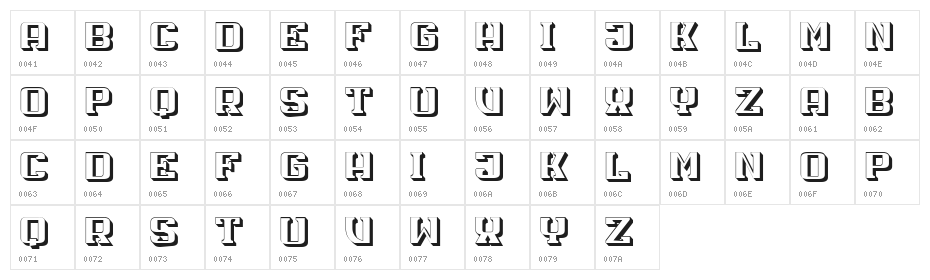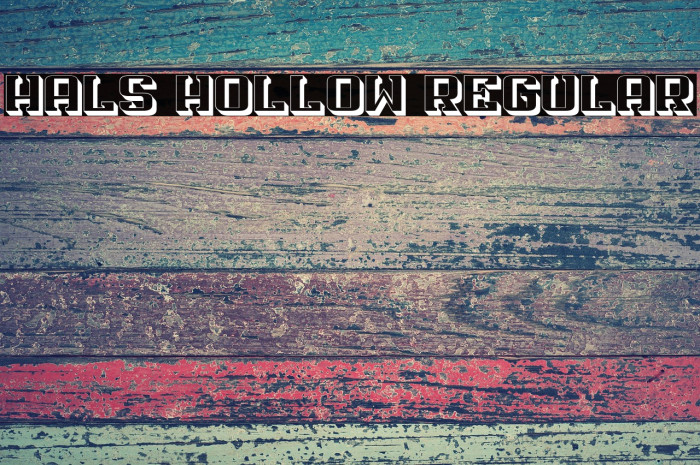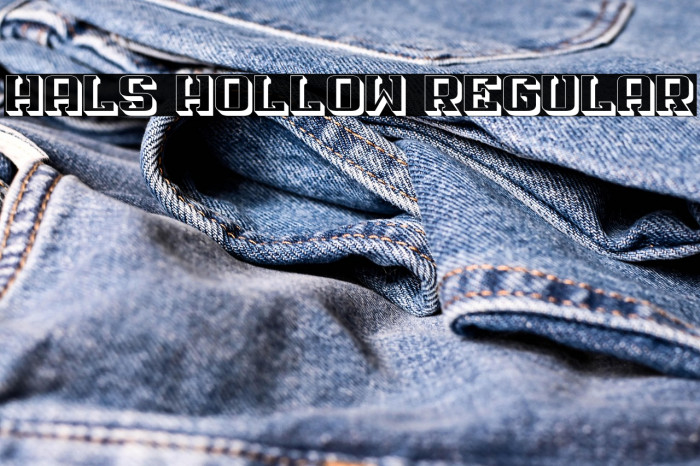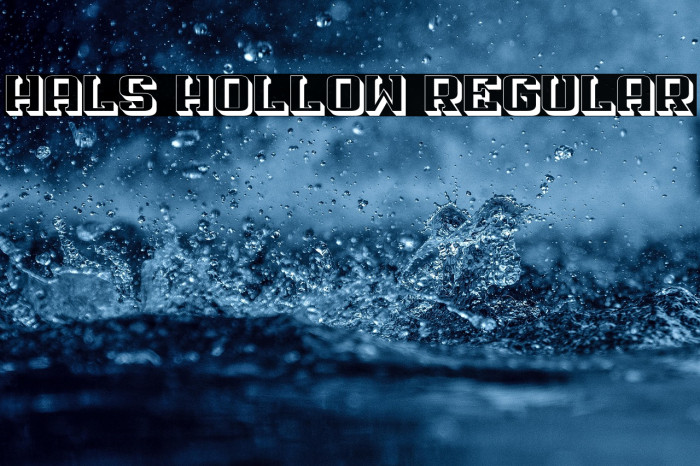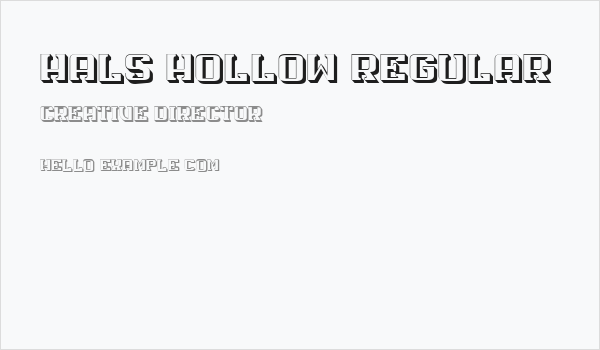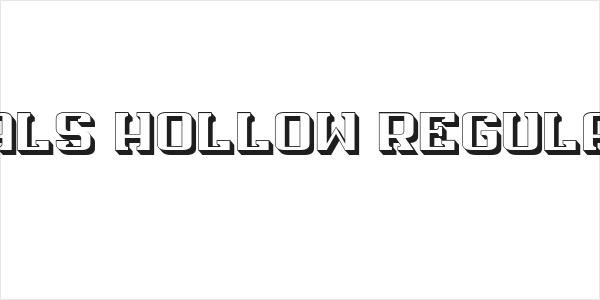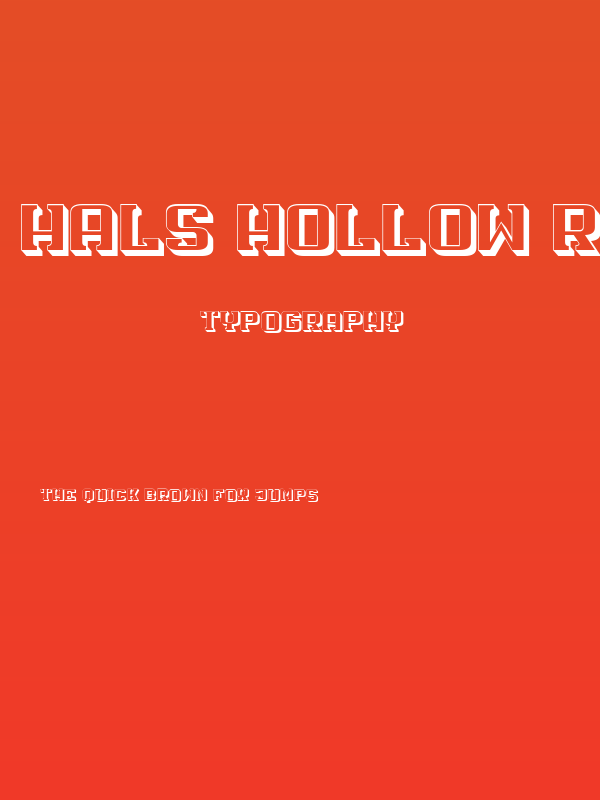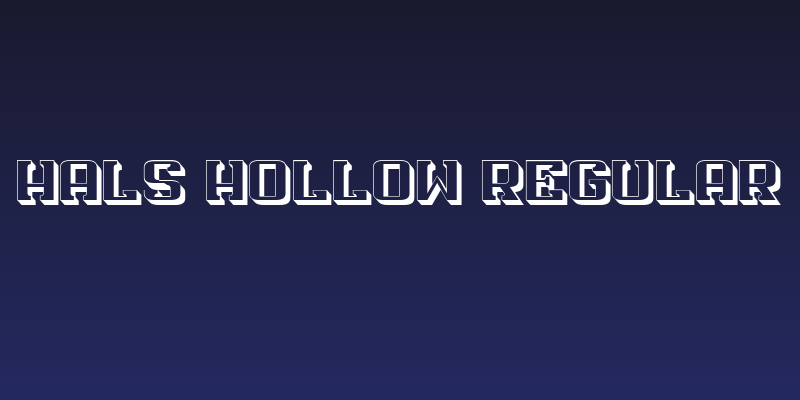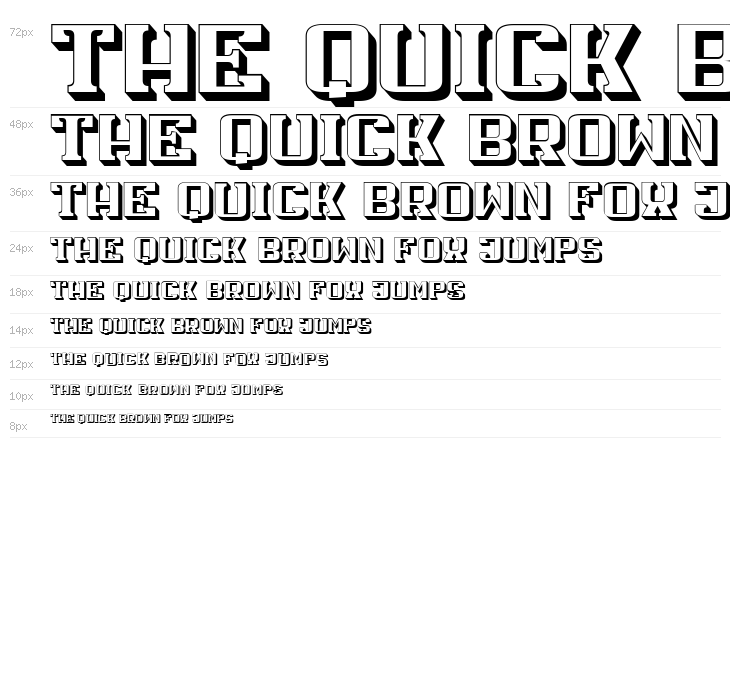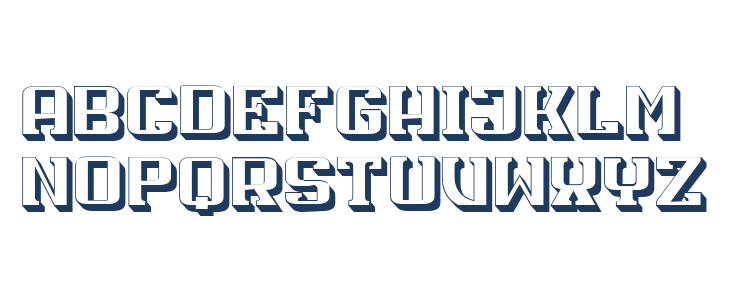
Hals Hollow Regular Font
Hals Hollow Regular Description
This font features a bold, hollow design with a strong 3D effect, characterized by its thick outlines and shadowed appearance. The uppercase letters are prominent and angular, giving a sense of depth and dimension. The style is distinctly decorative, making it stand out with its unique geometric shapes and bold presence. The hollow interiors add a touch of lightness to the otherwise heavy design, creating an interesting visual contrast. This font is ideal for eye-catching headlines and titles, where a striking and memorable impression is desired. The overall look is modern and dynamic, suitable for projects that require a bold statement.
| Proposed Projects | Ideal for posters, logos, headlines, and any design that requires a bold, eye-catching font. |